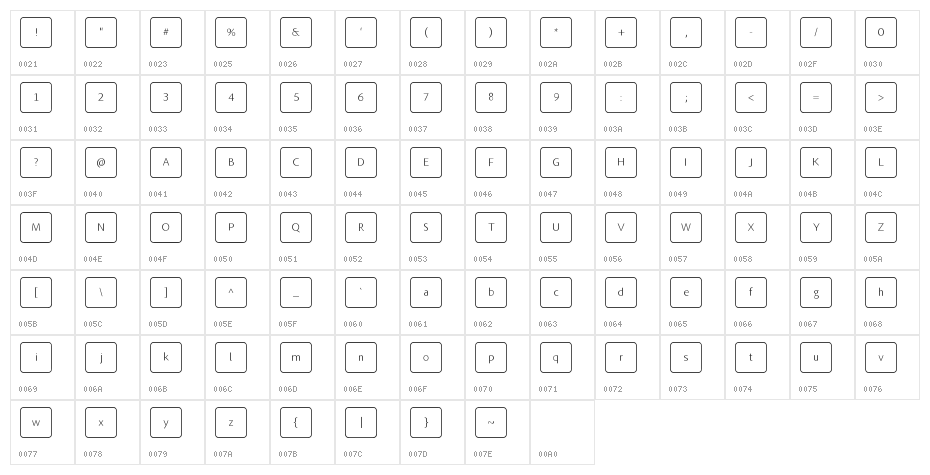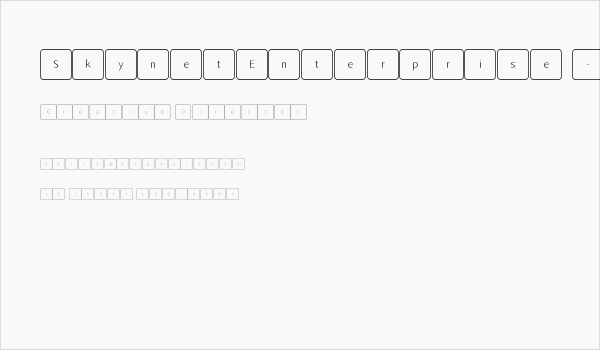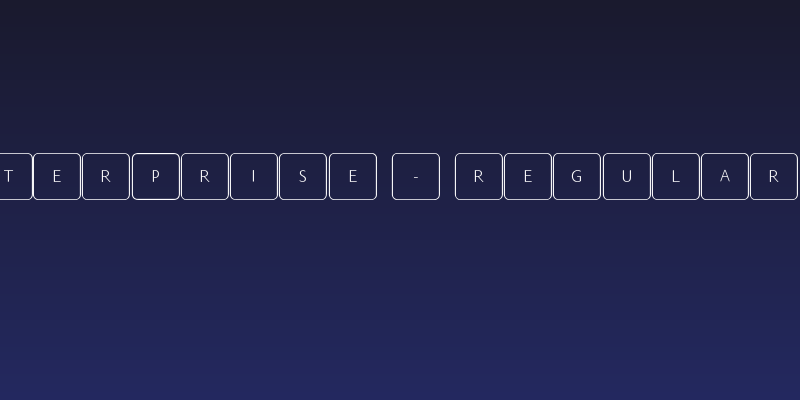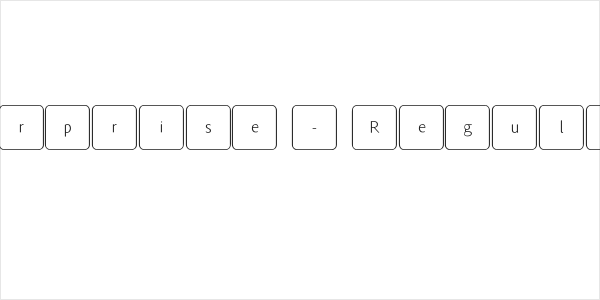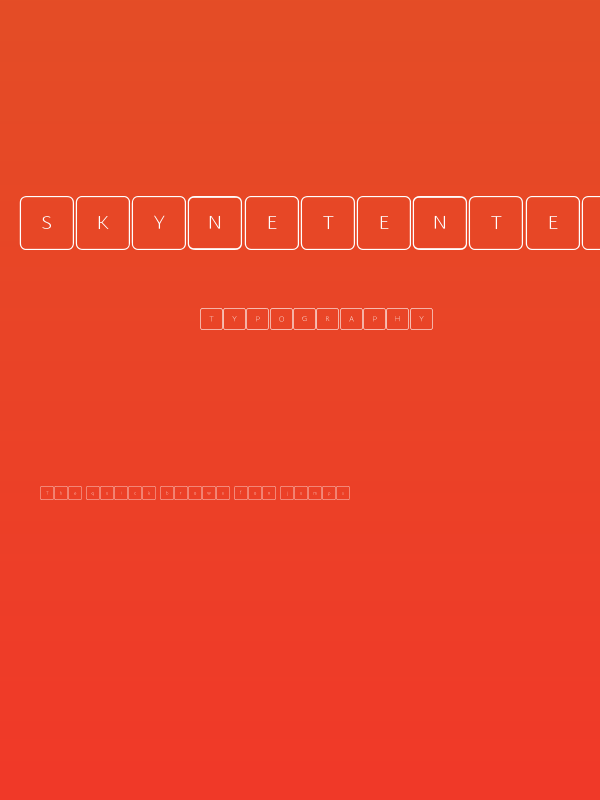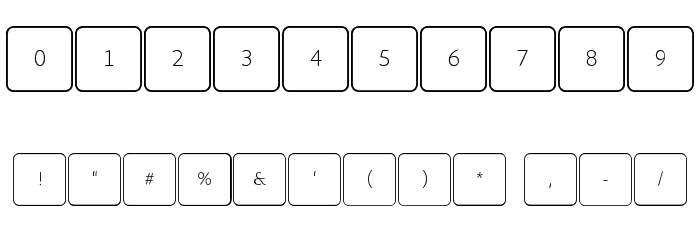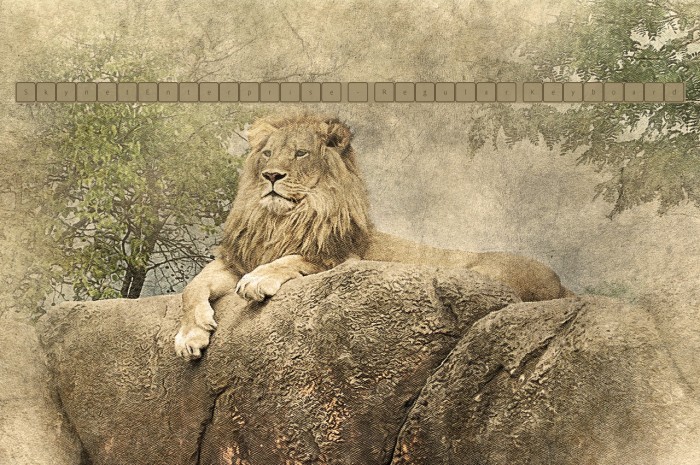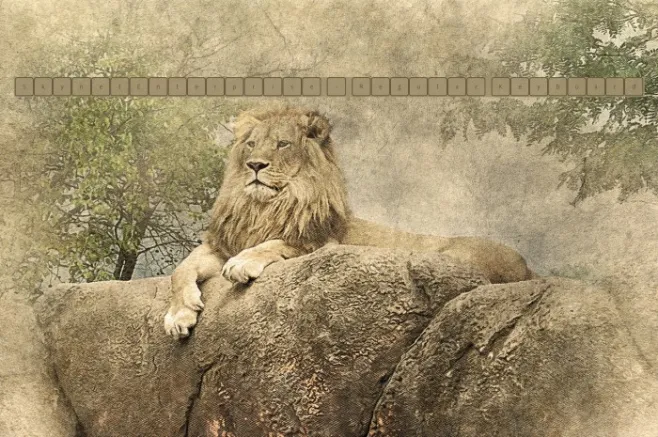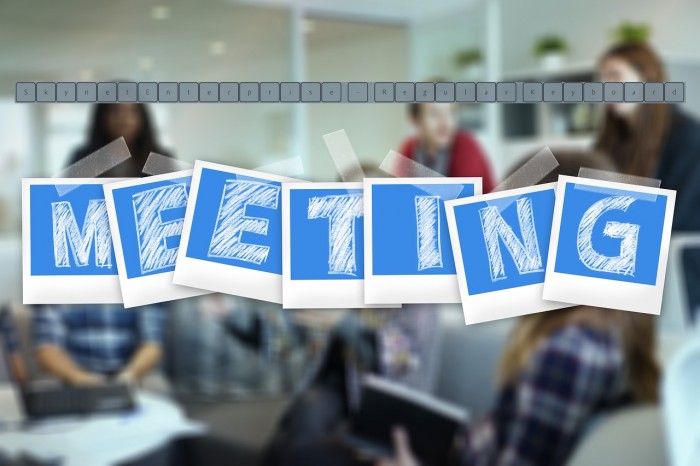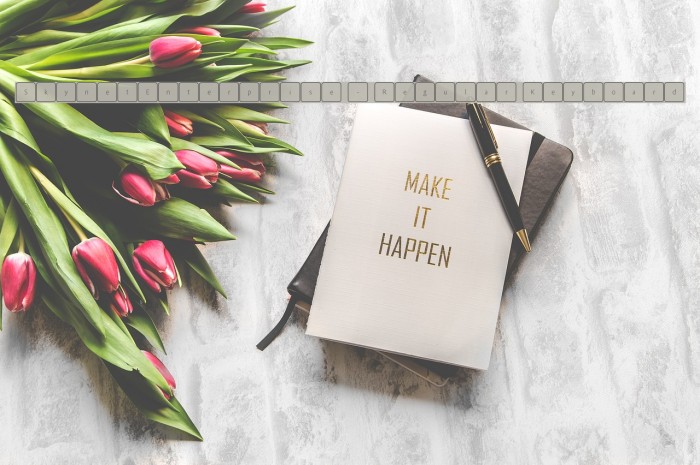
Skynet.Enterprise - Regular Keyboard Font
| Cas d'utilisation | Headlines, User Interfaces, Digital Displays |
| Projets proposés | Ideal for user interfaces, digital displays, tech-related branding, and educational software. |